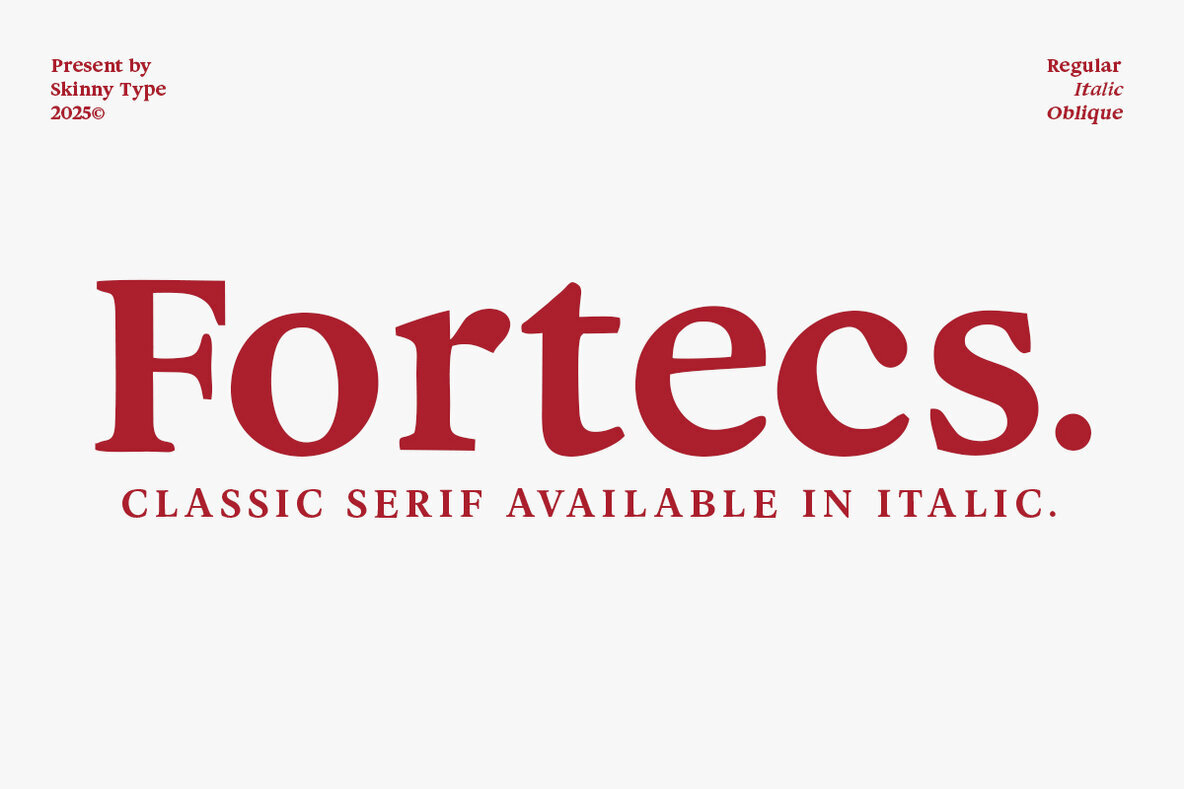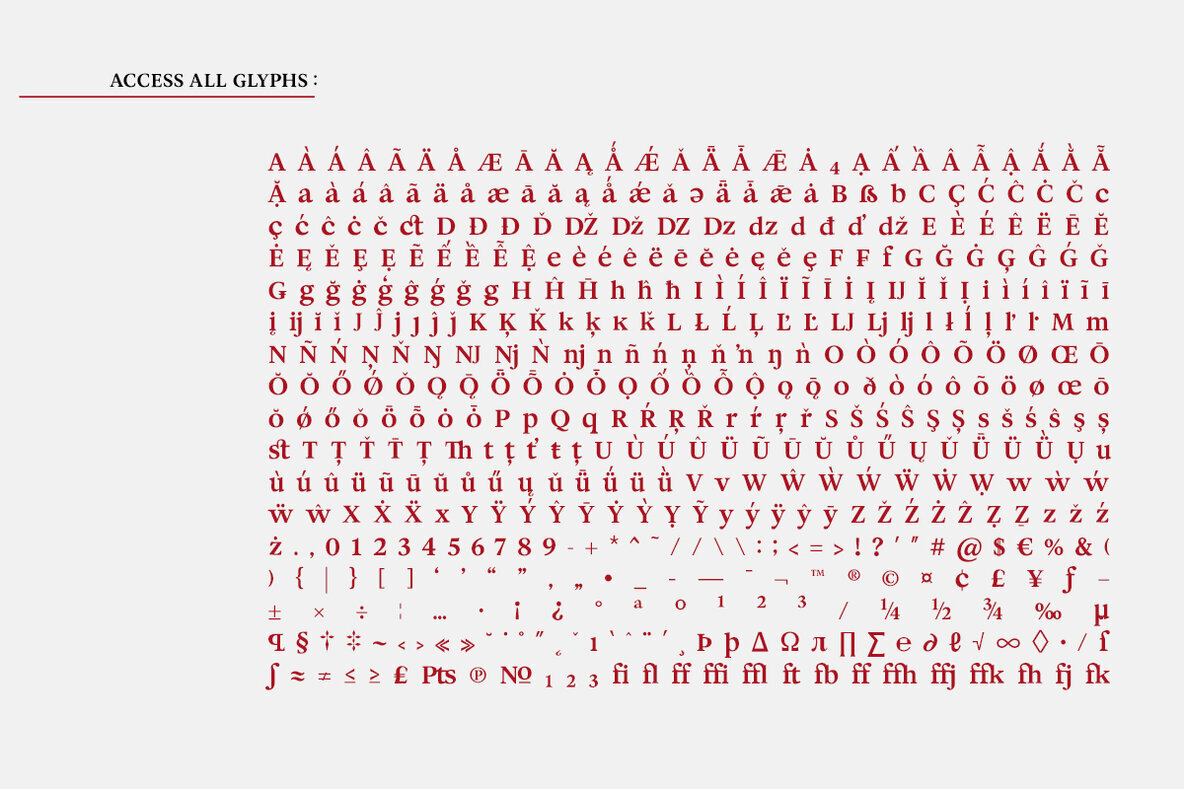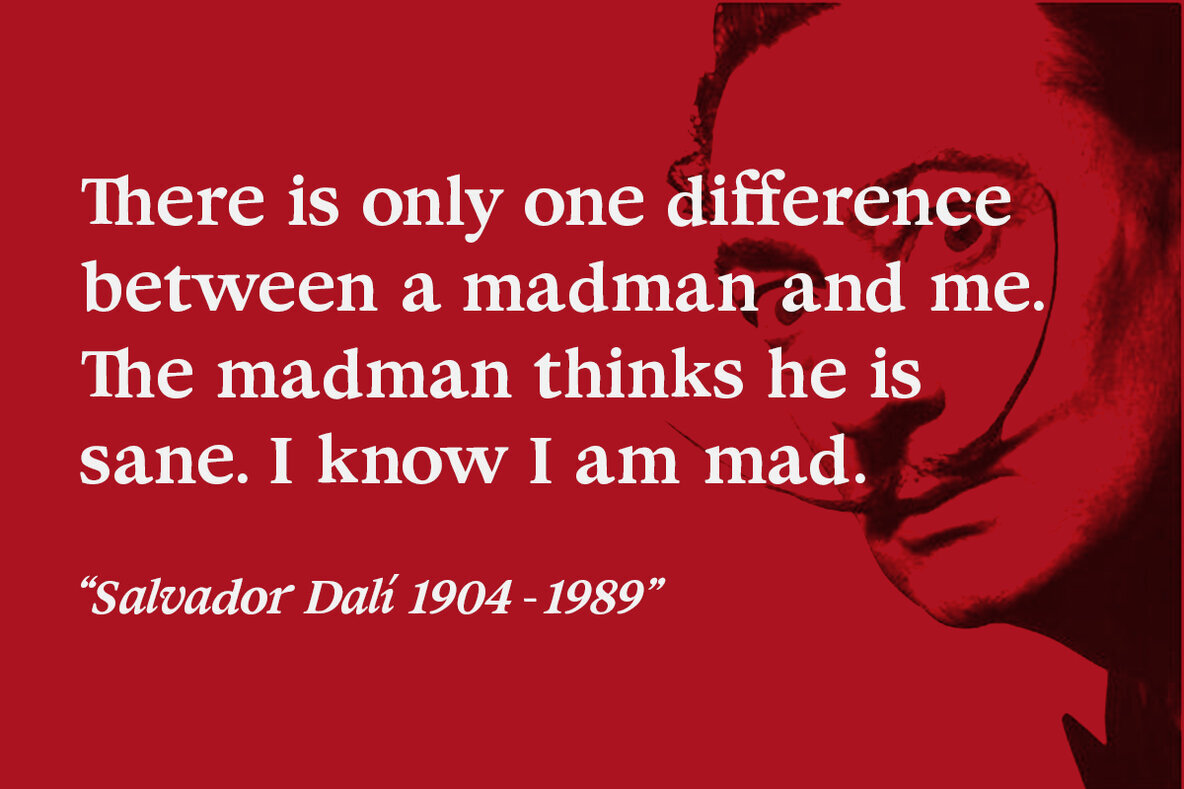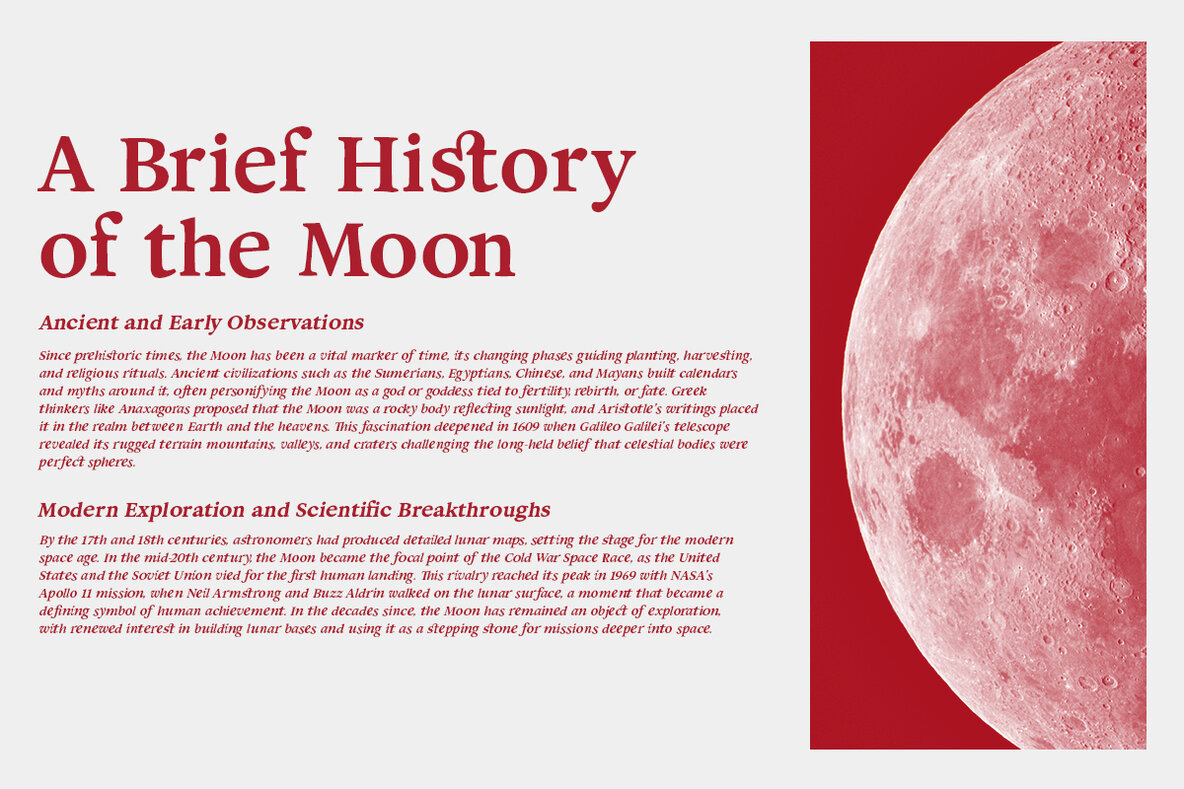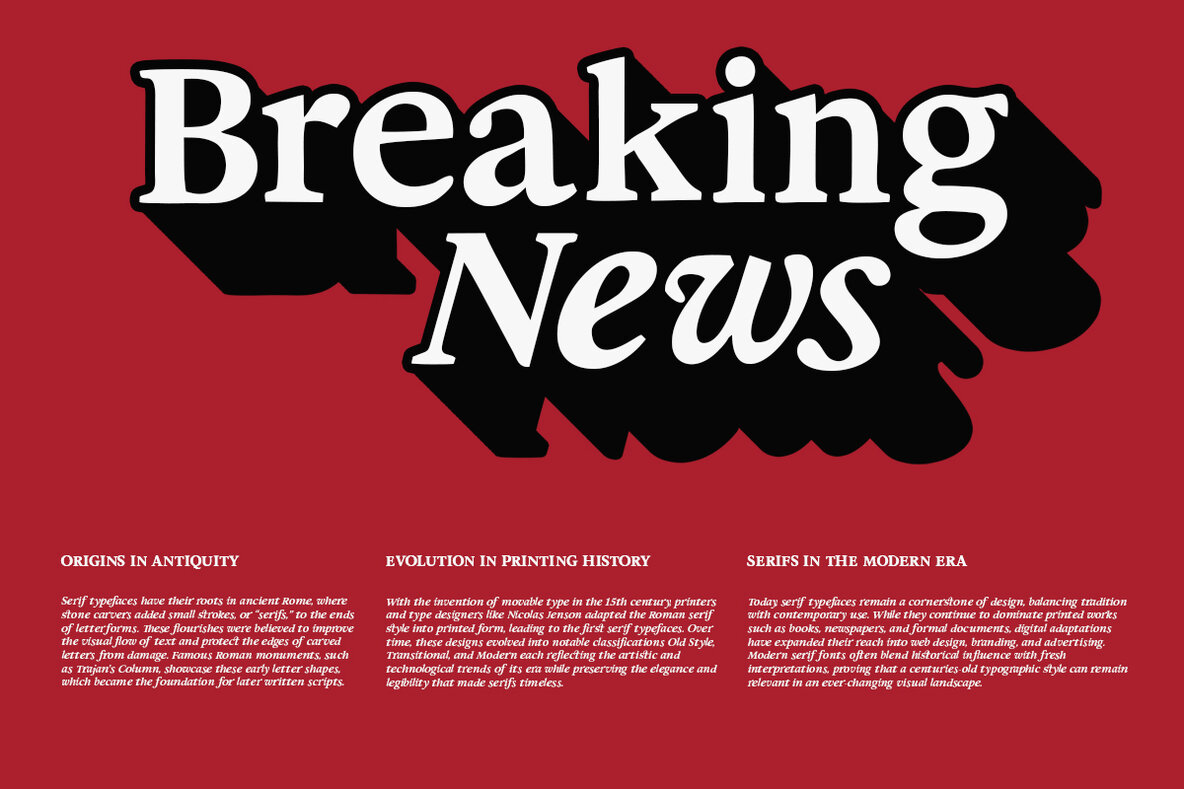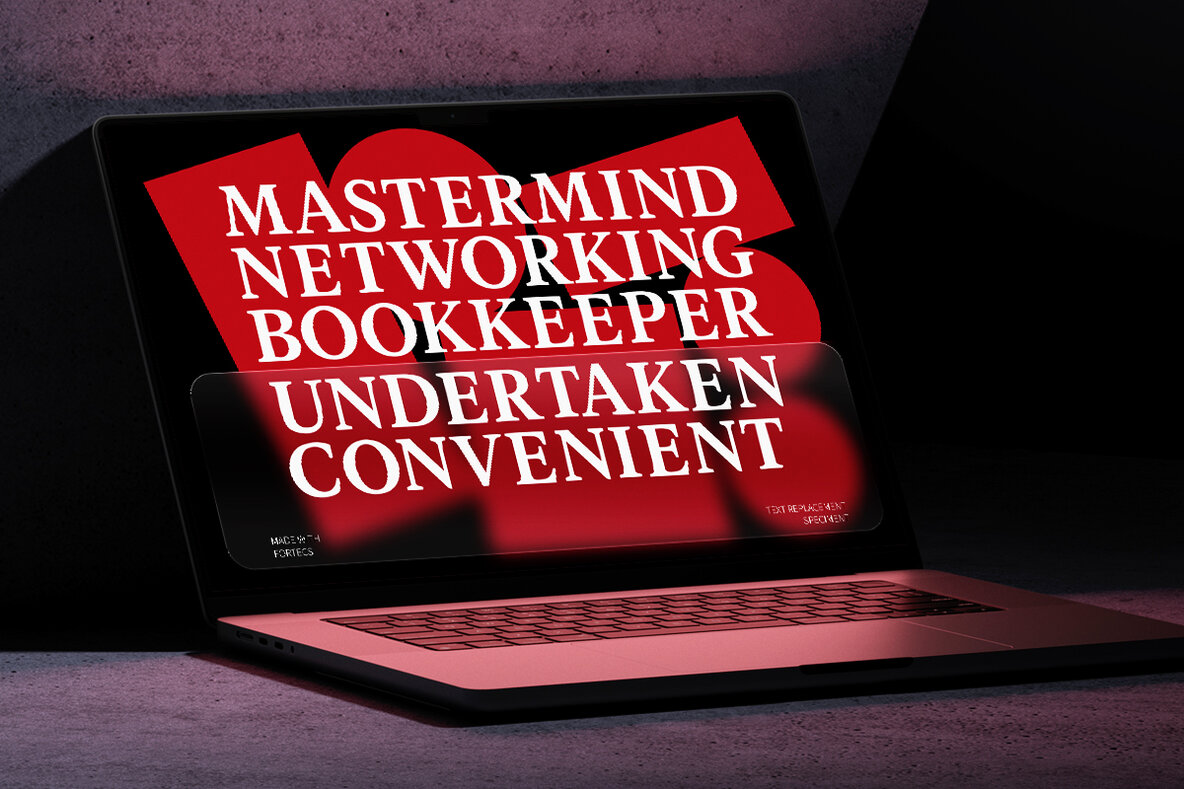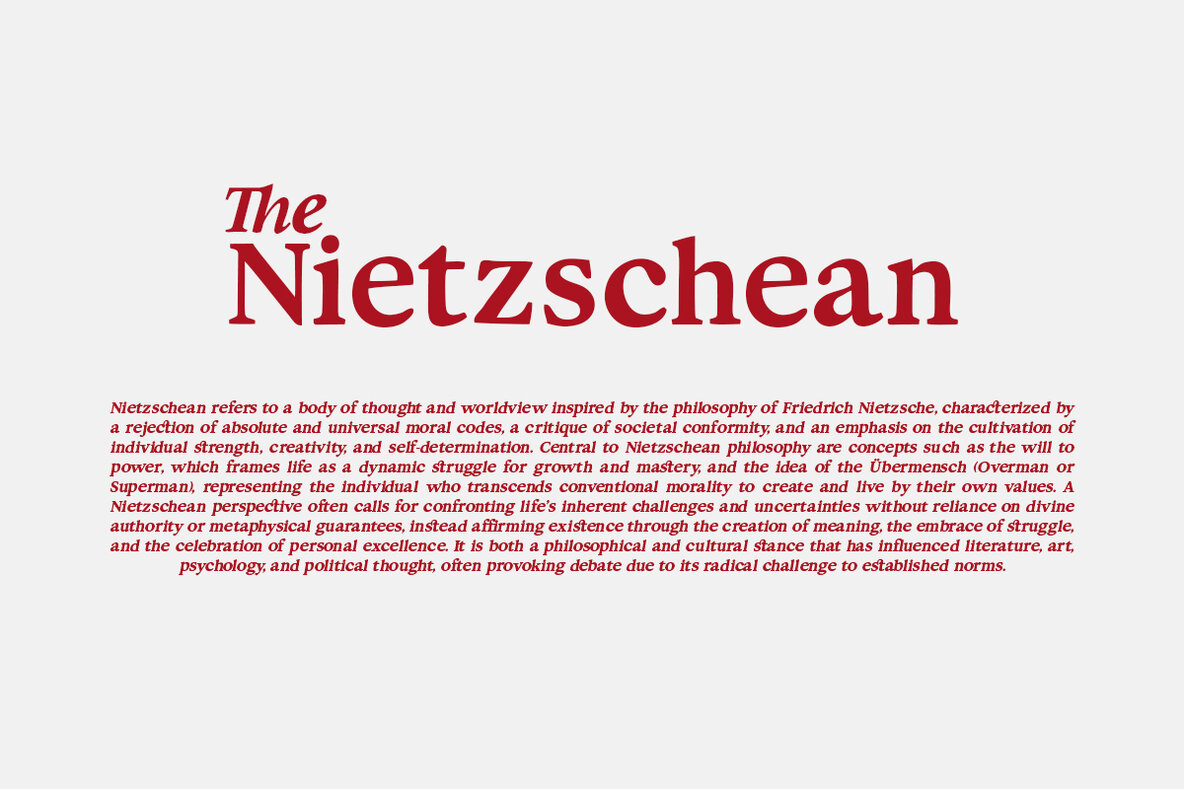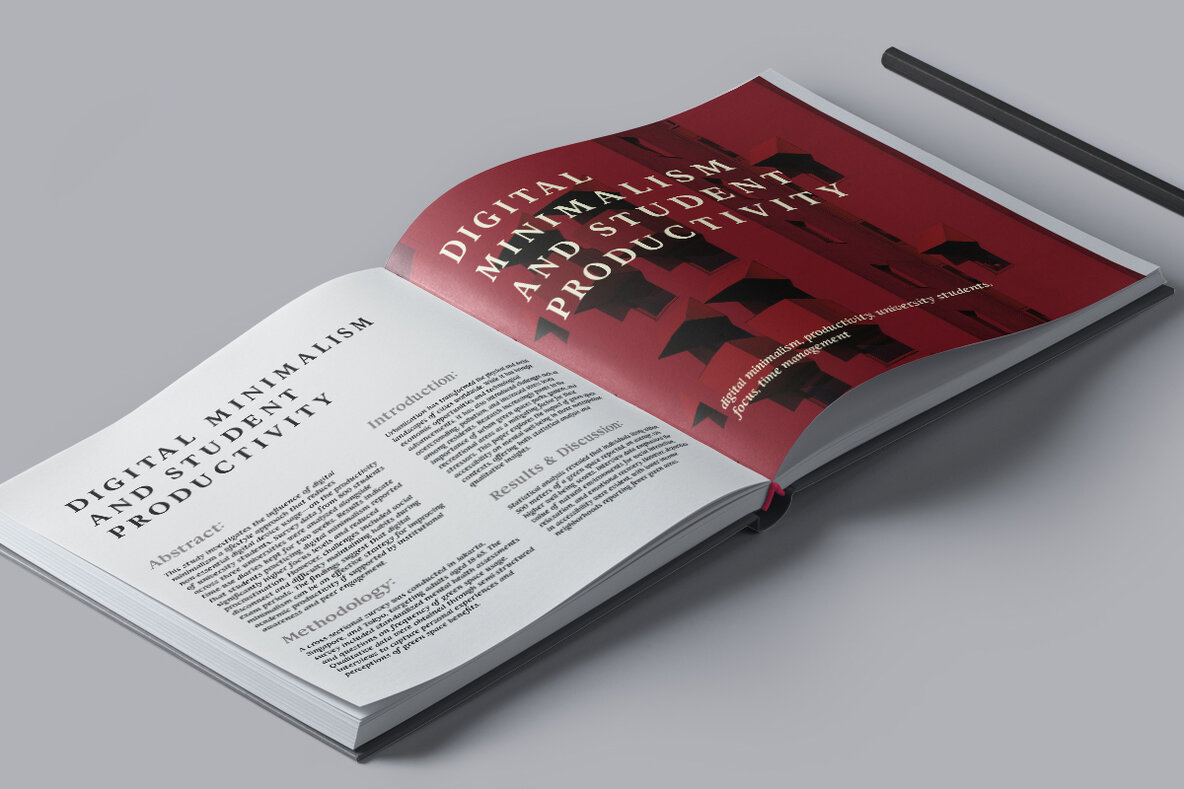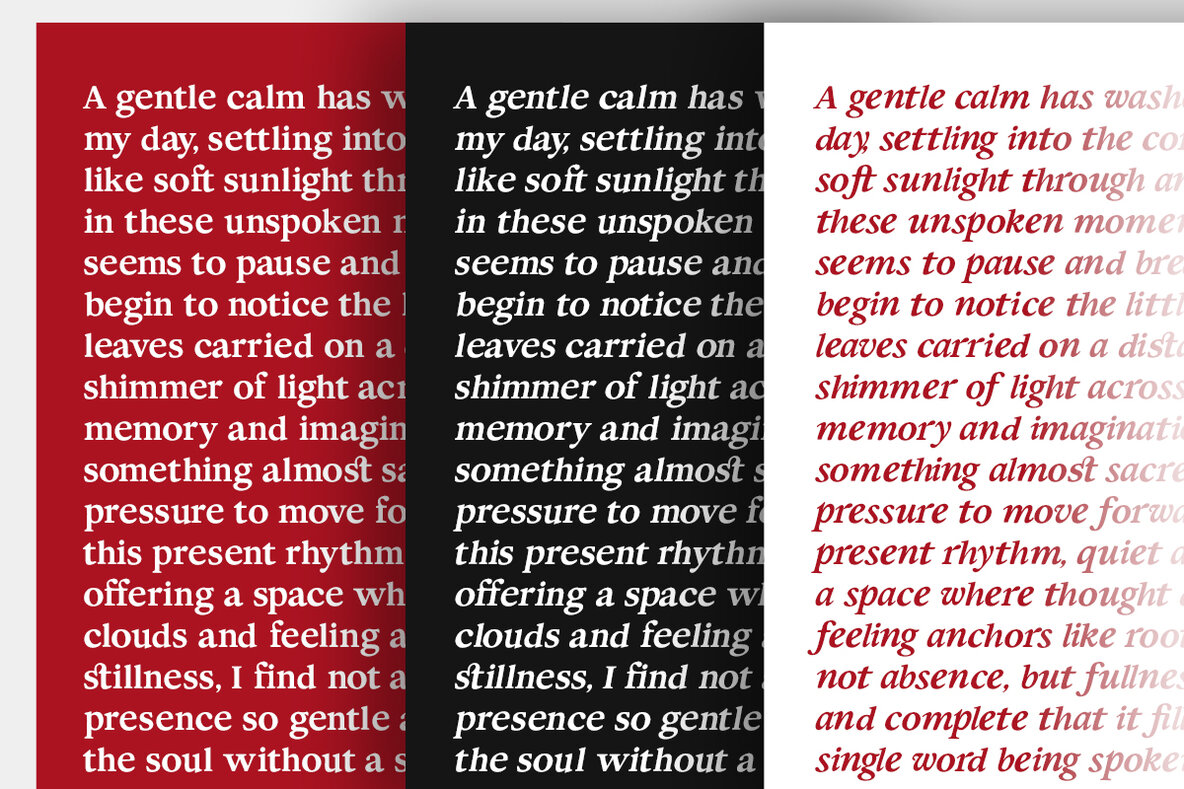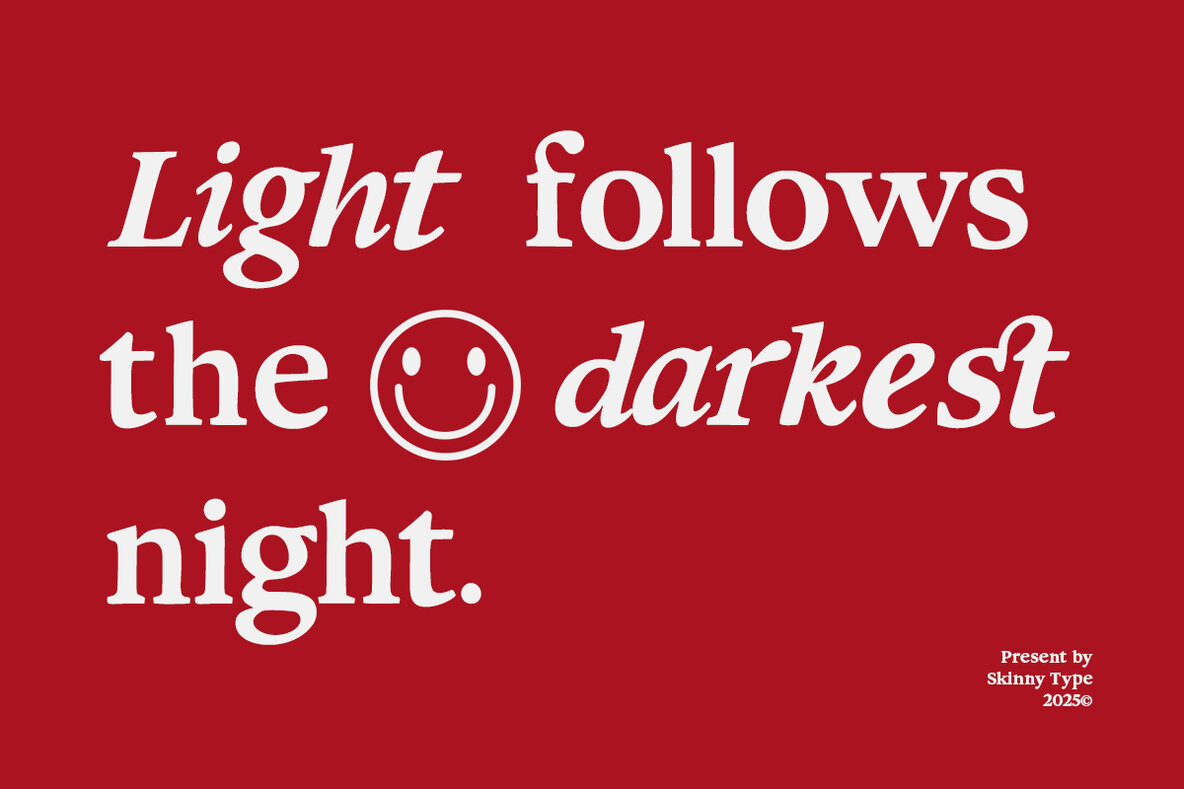
Fortecs Font
Fortecs stands as a hallmark of elegant typography, seamlessly merging traditional craftsmanship with contemporary style. Robust serifs and meticulously sculpted letterforms underline both strength and sophistication, making this typeface a versatile choice for editorial design, branding, packaging, and formal invitations. Designed with versatility in mind, Fortecs includes multiple styles—Regular, Italic, and Oblique. The italic version adds a touch of fluid grace, while the oblique style introduces a subtle slant, enhancing both clarity and impact. These variations allow designers to create expressive typographic hierarchies and bring refined nuances to their projects. Fortecs excels in establishing a distinguished and authoritative presence. Its classic proportions and slight modulation in stroke width offer a refined option for those seeking a bridge between tradition and modernity.Fortecs: Timeless Classic Serif Typeface